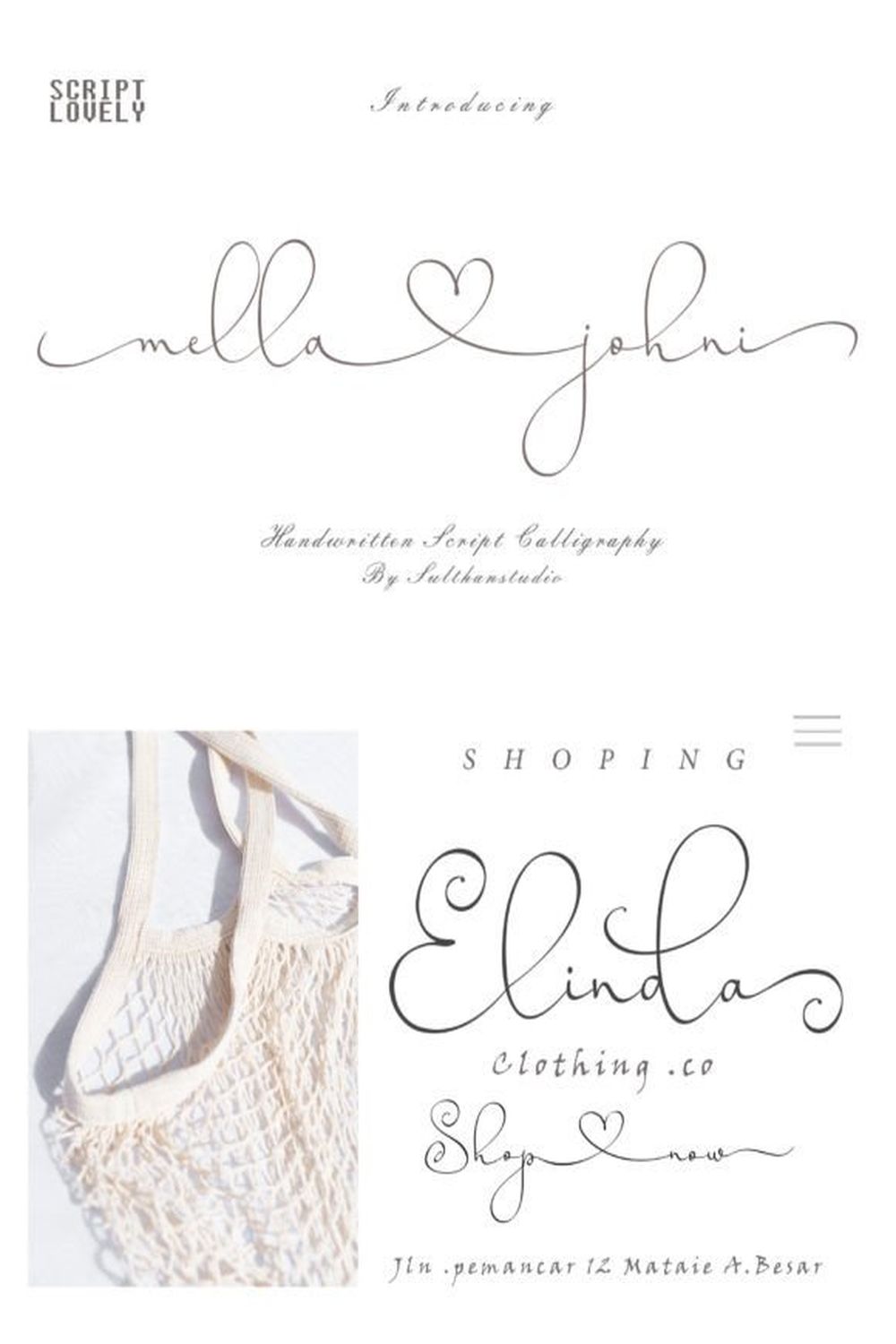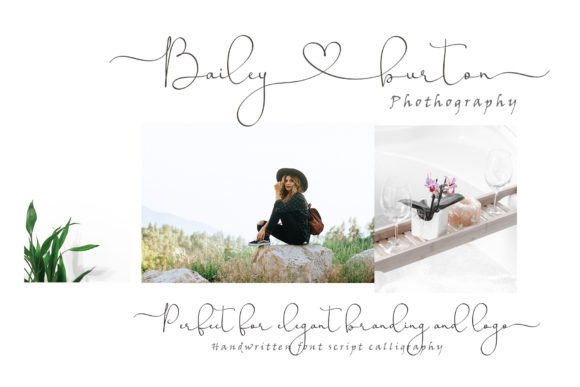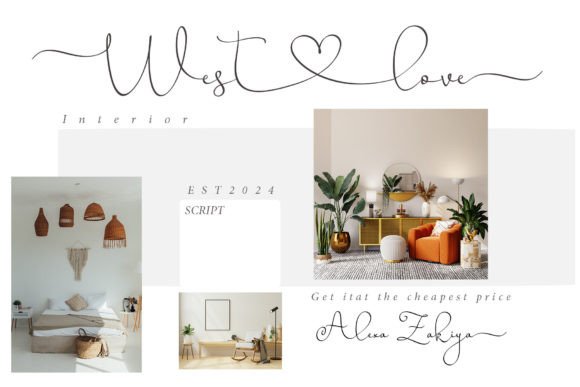
Mella Johni Font: Cute Handwritten Script Font for Wedding & Branding
About the Mella Johni Font
Meet Mella Johni Font, a stunning font that brings a touch of elegance and professionalism to any design. Mella Johni is very attractive with the latest trendy style, it will satisfy you if you use it in all your work, be it on social media or your handiwork.
This font has many alternative letters according to your wishes and capital letters which have four replacement letters and lower case letters which have various swashes and alternatives and also heart connectors. Of course this font will have many choices of how to use the characters and is also very cute.